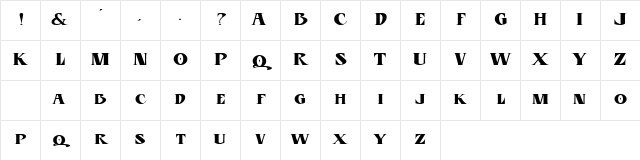
Complete BLU Esoteric plain glyph index. Displaying only characters natively supported by BLU Esoteric plain font.
BLU Esoteric is a composed and adaptable typeface that performs quietly and consistently across a wide range of design contexts.